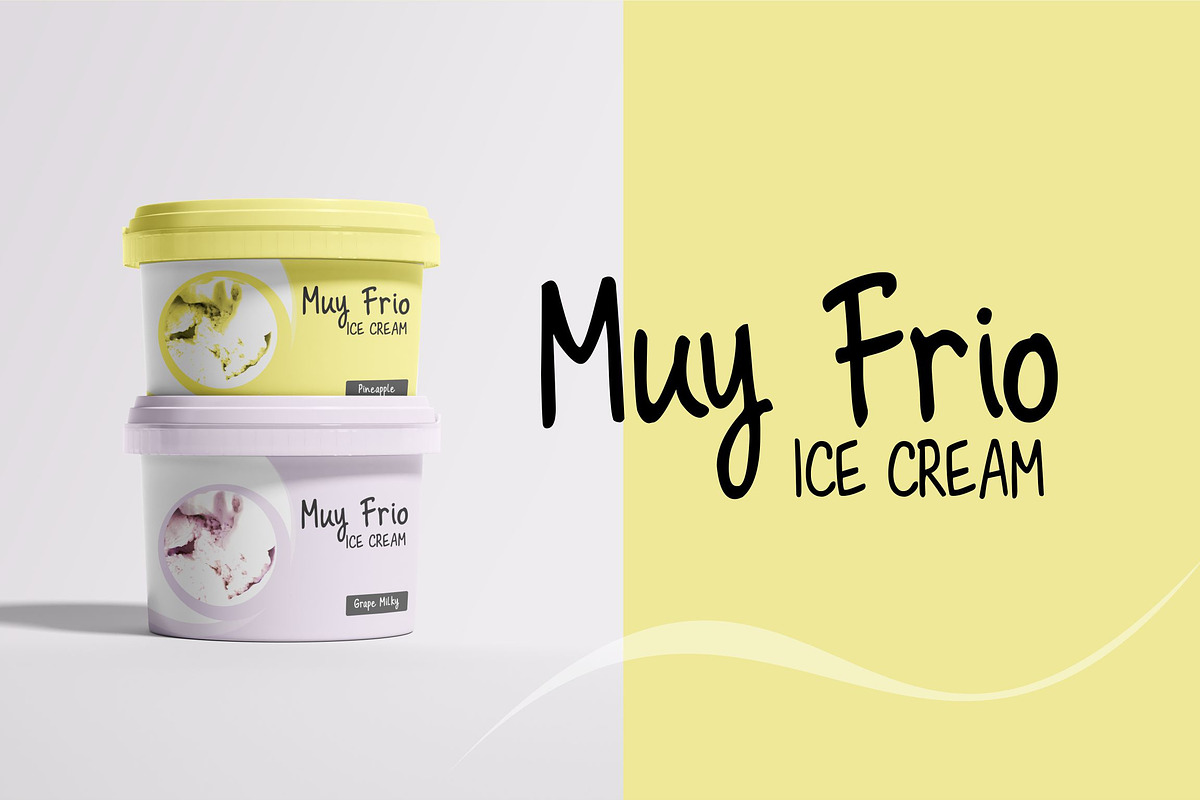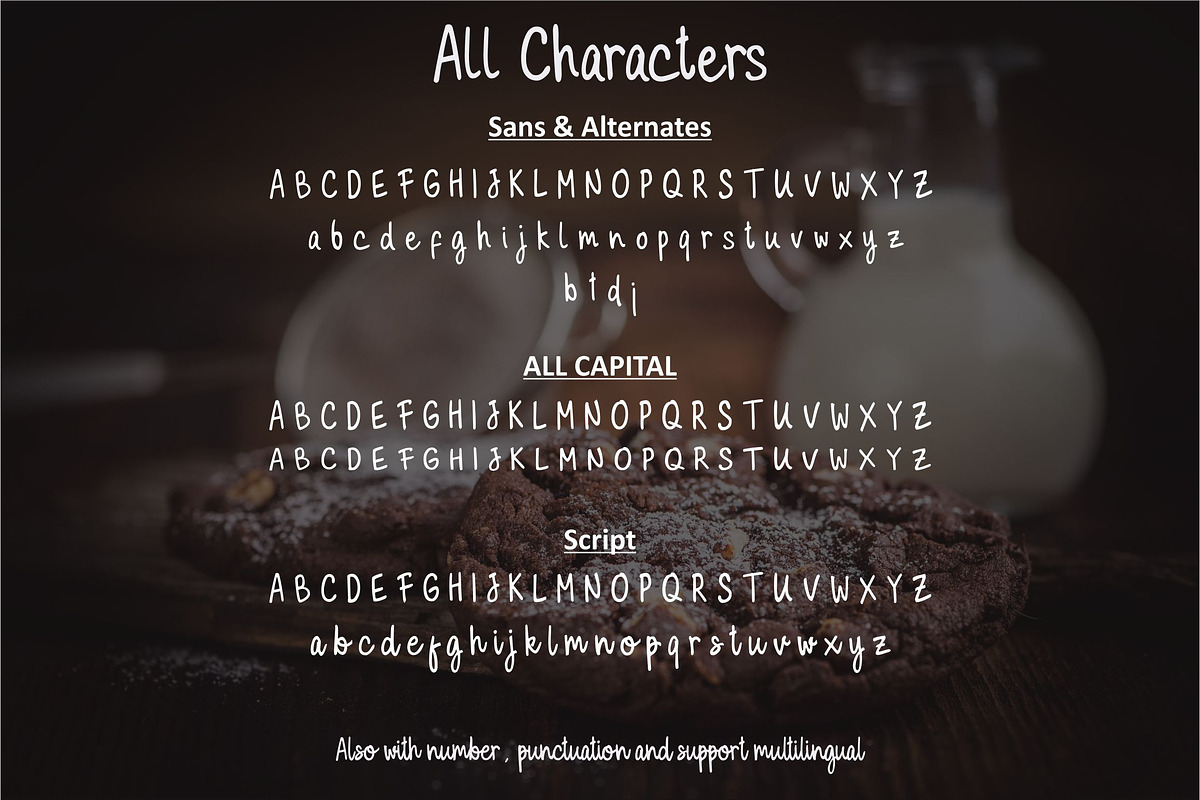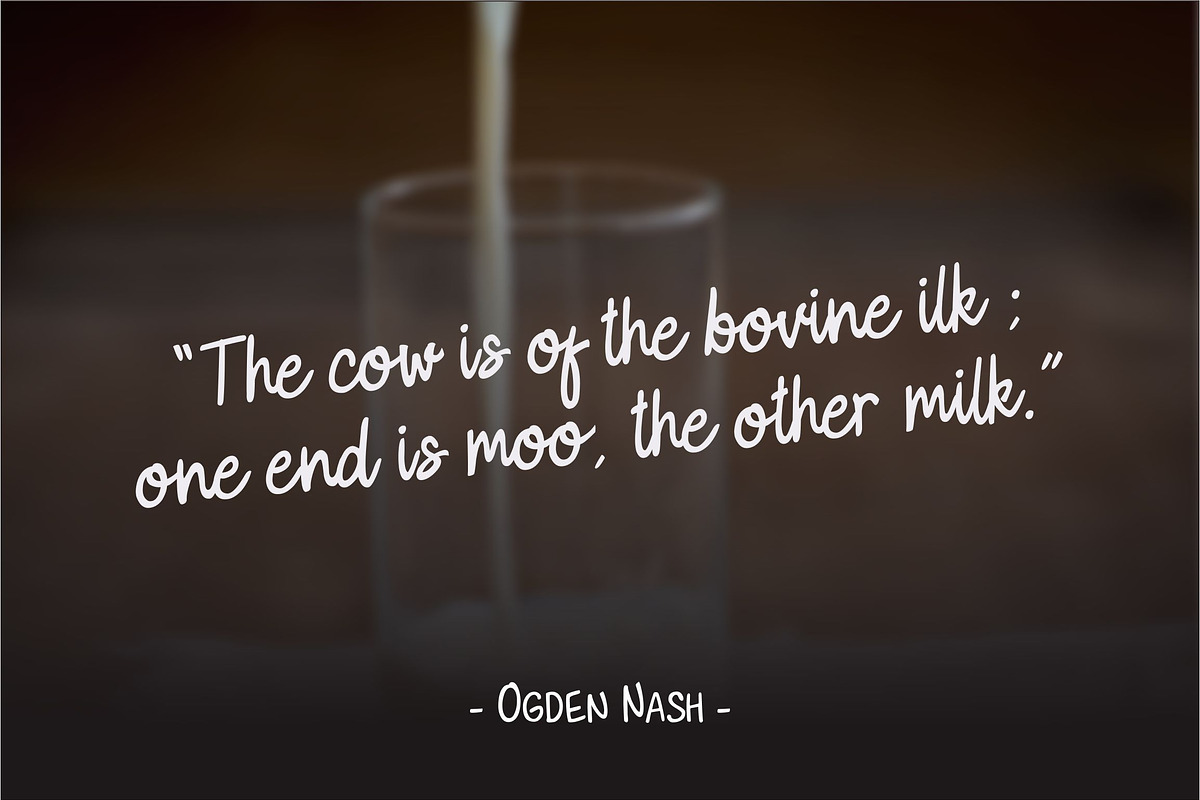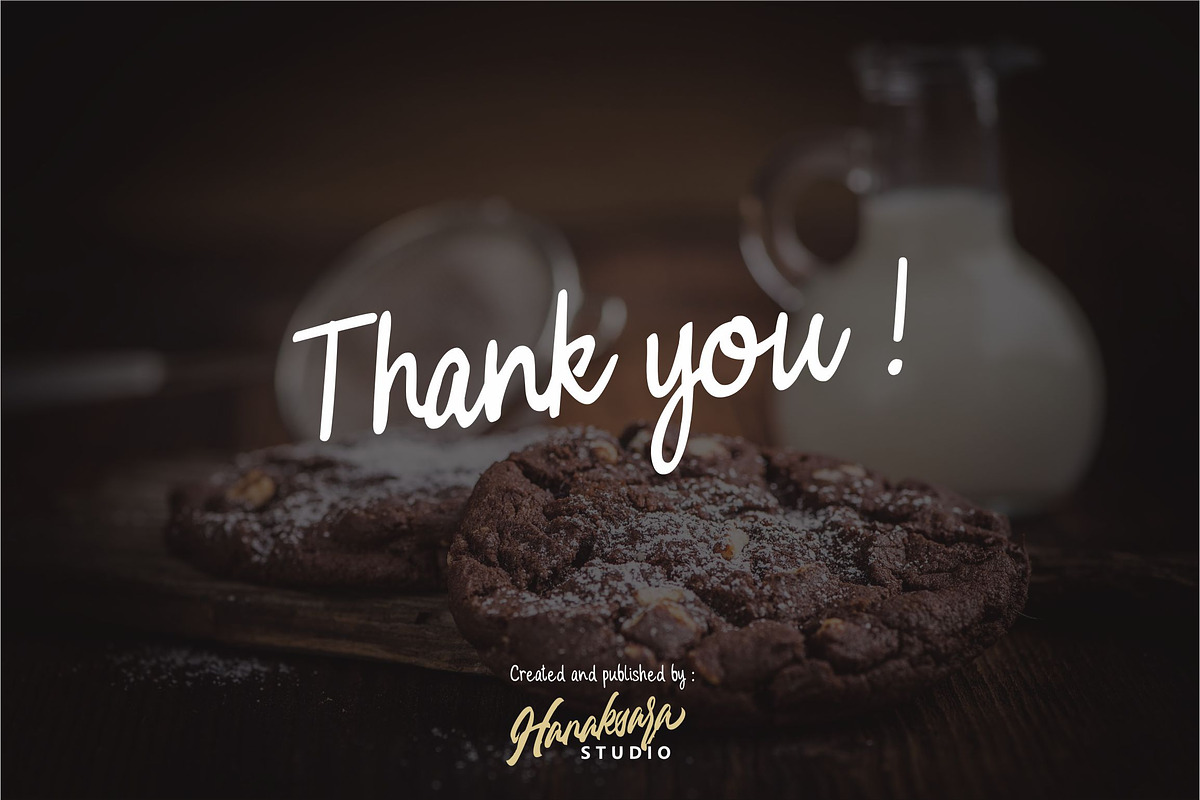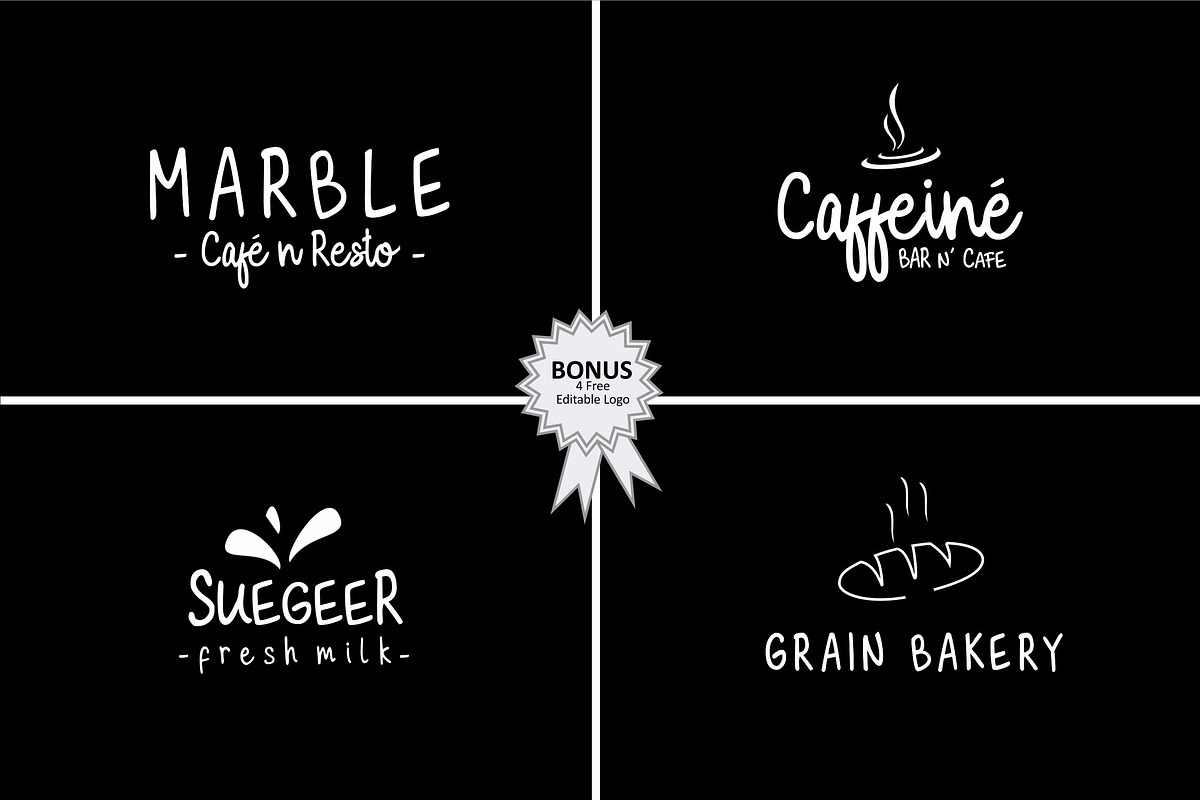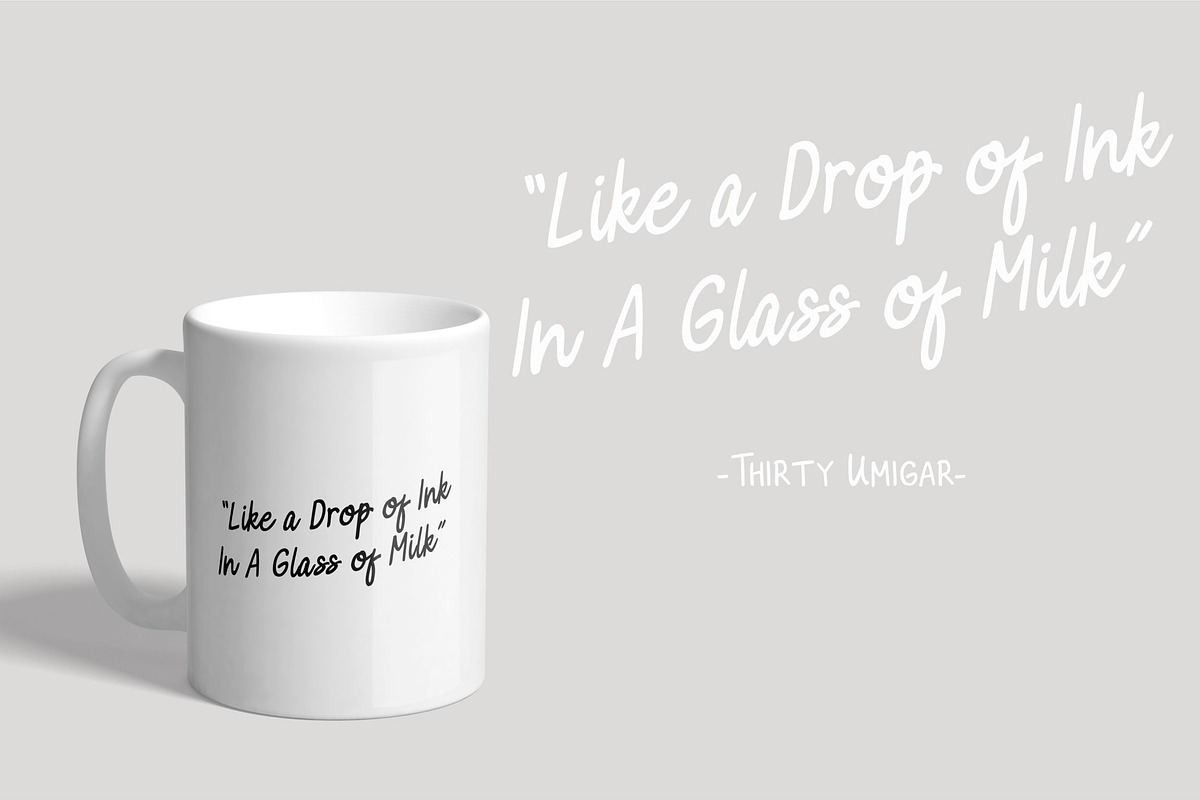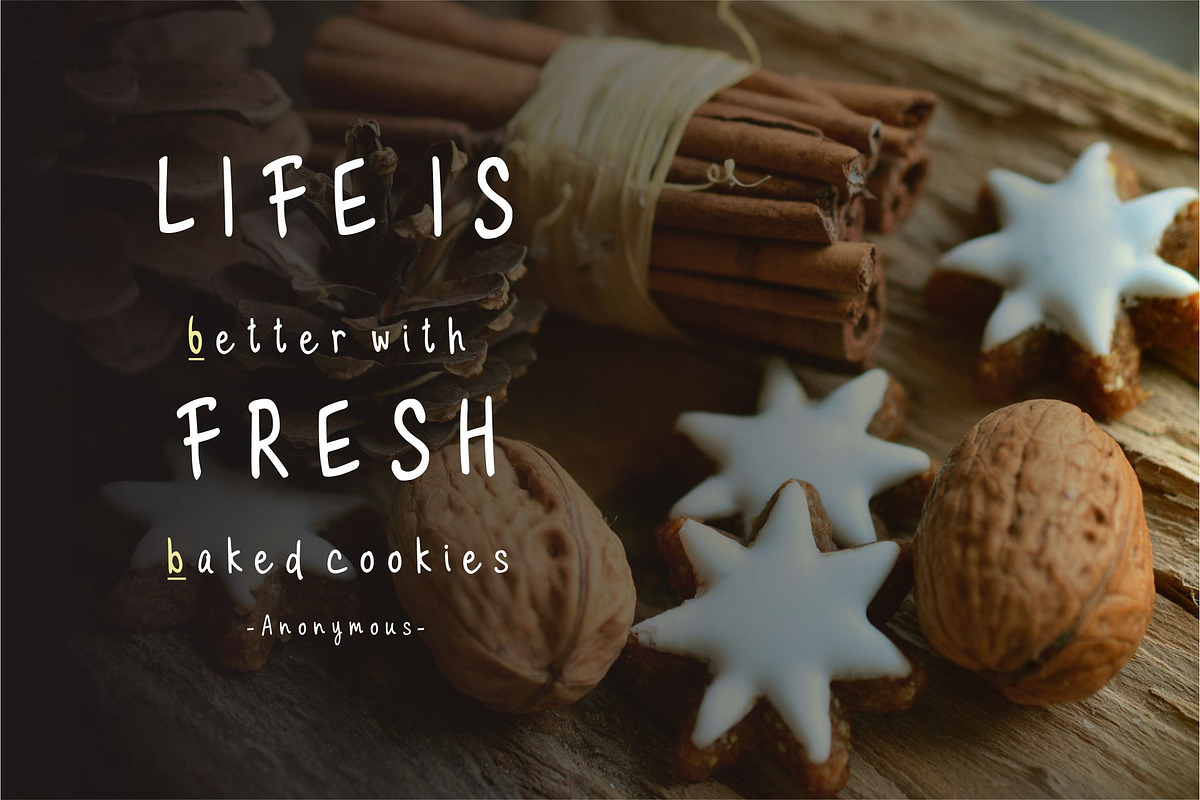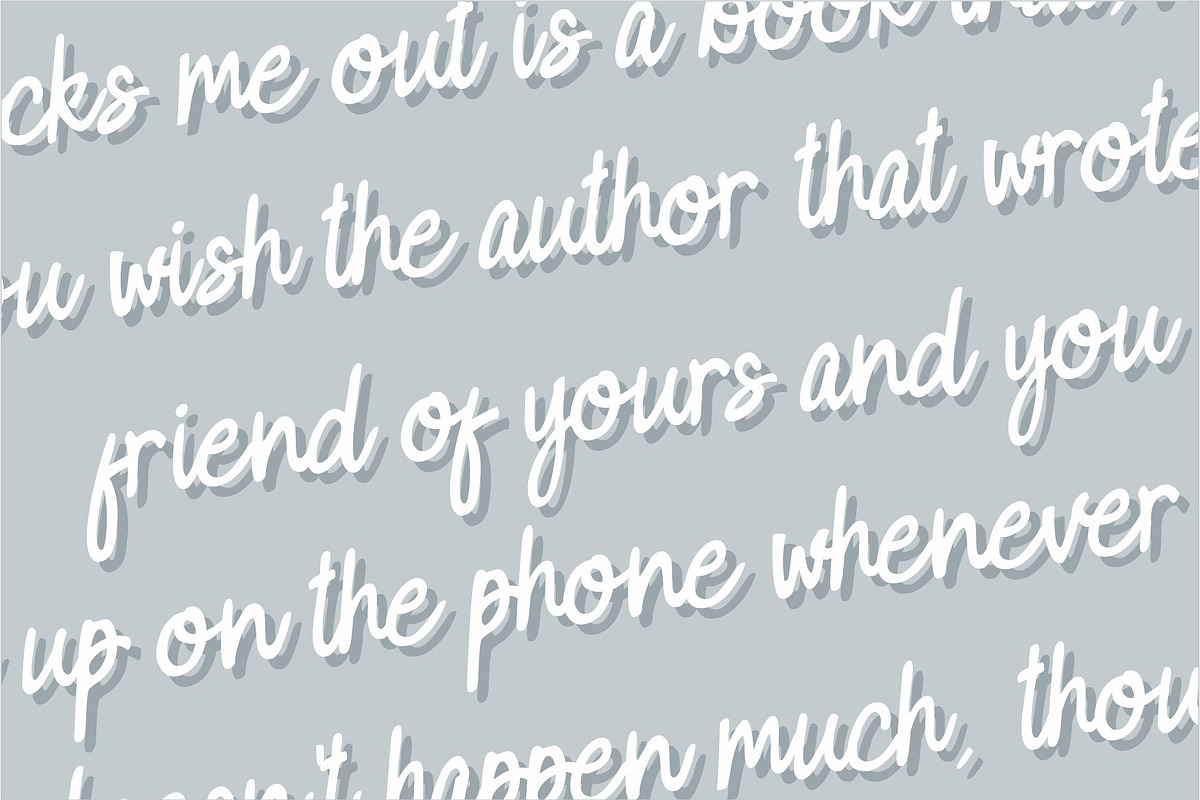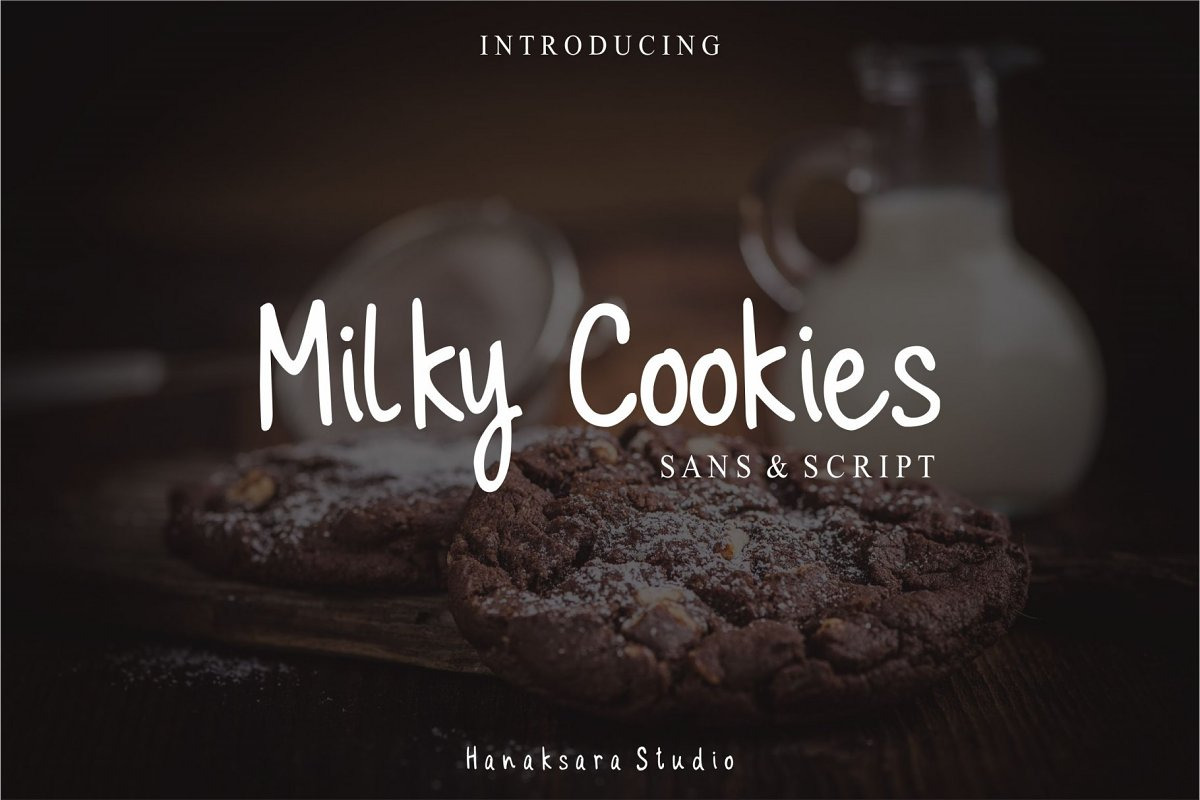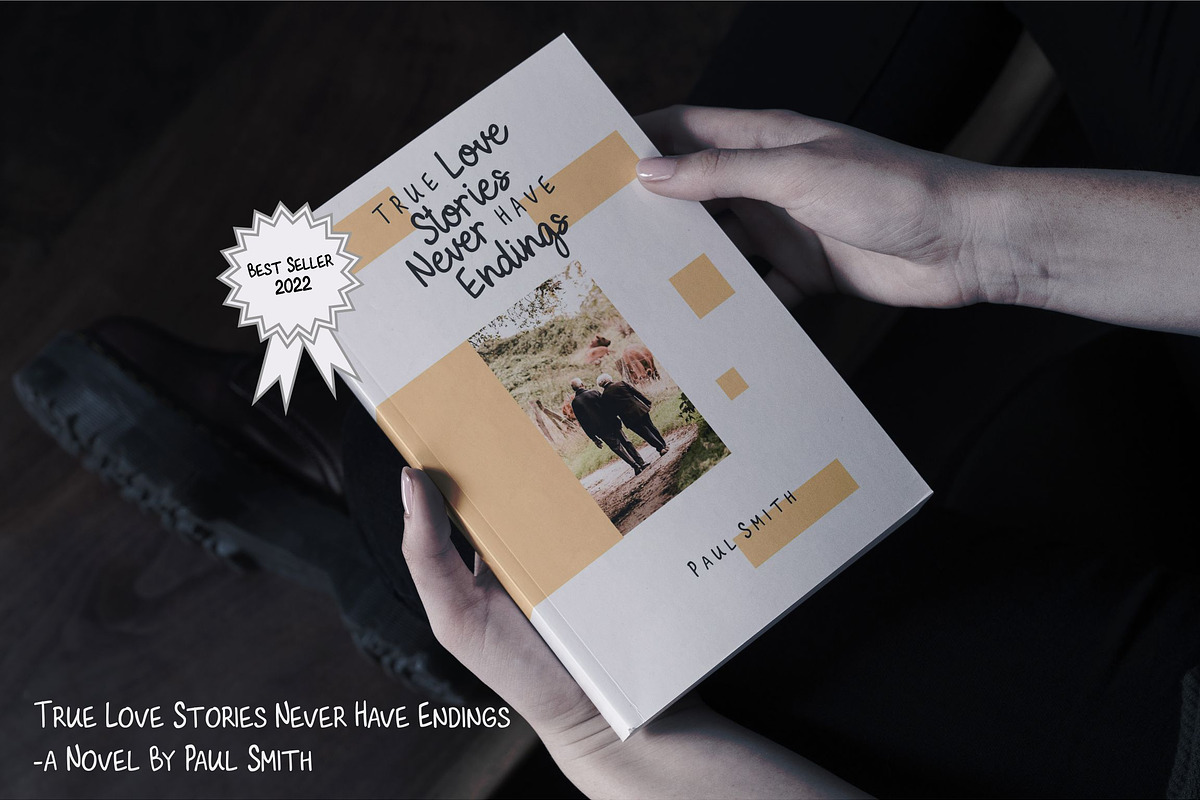
Milky Cookies - Font Duo
Milky Cookies is Handwritten Font. With mimic natural handwritting. These font really suitable for logo of cafe, restaurants, food label and its prety cool suitable for book cover design or title of blog, and it's very suitable for your notes!
Milky cookies having three versions, Sans, All Capital, and Script, Its enable to make some combination of them for being a logo. Full set uppercase, lowercase, punctuation, number is included of all version. And this font supported with multilingual. And what did you get?